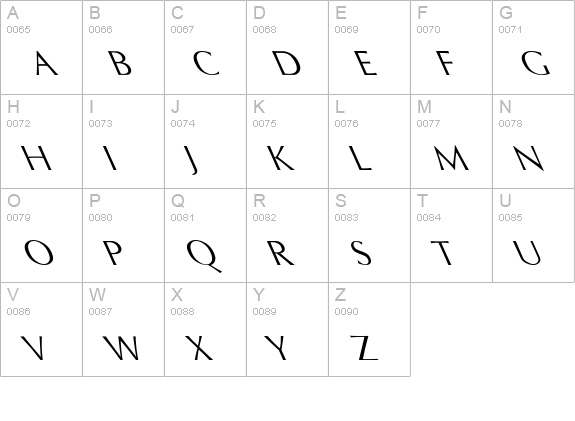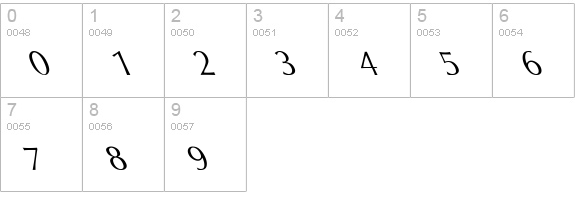
Oxford In The Left Font Details
Oxford In The Left font is a unique and stylish typeface that combines elegance with a touch of sophistication. Its clean lines and modern design make it a versatile choice for various design projects. The font exudes a sense of class and professionalism, making it perfect for branding, logos, invitations, and more. What sets Oxford In The Left font apart is its free-spirited charm that adds a playful twist to any text. The font's bold and italic styles create a dynamic visual impact that will surely capture attention. Whether you are looking to make a statement or add a touch of creativity to your designs, Oxford In The Left font is the perfect choice. And the best part? Oxford In The Left font is freely available to download at FontsMarket.com. So why wait? Add this stunning font to your collection today and take your designs to the next level!